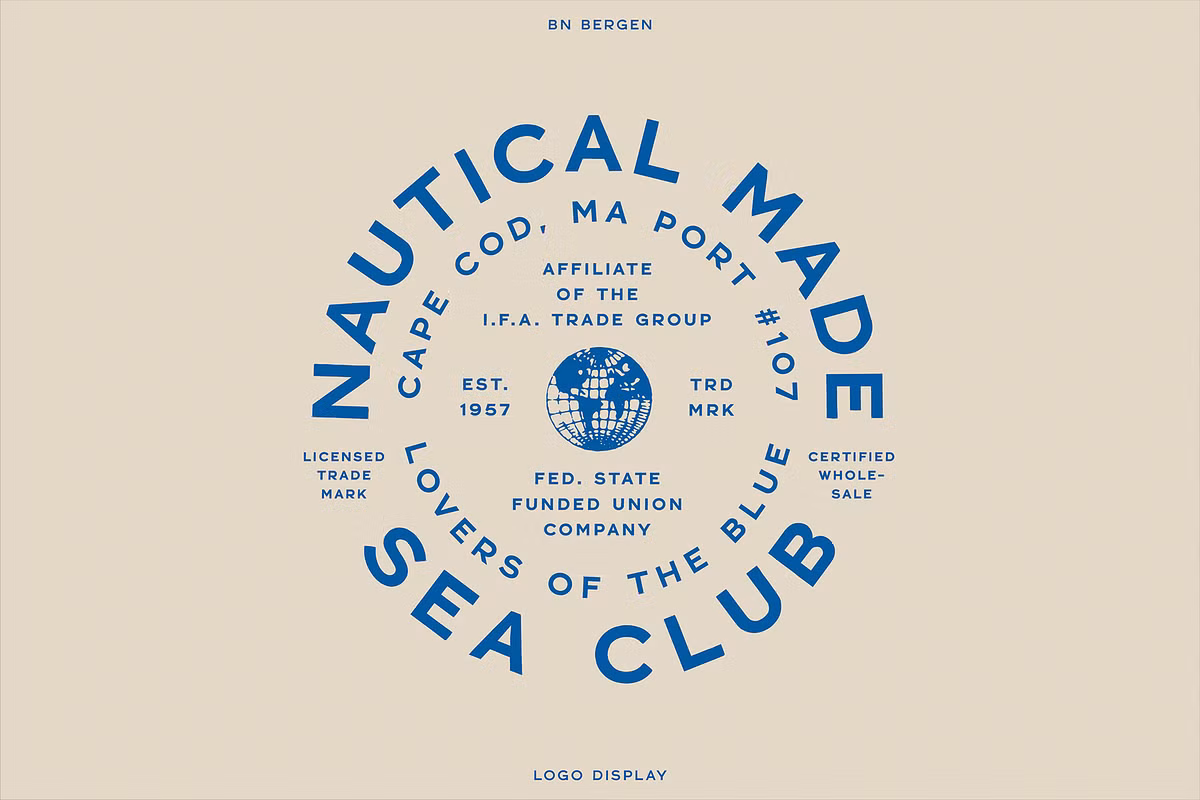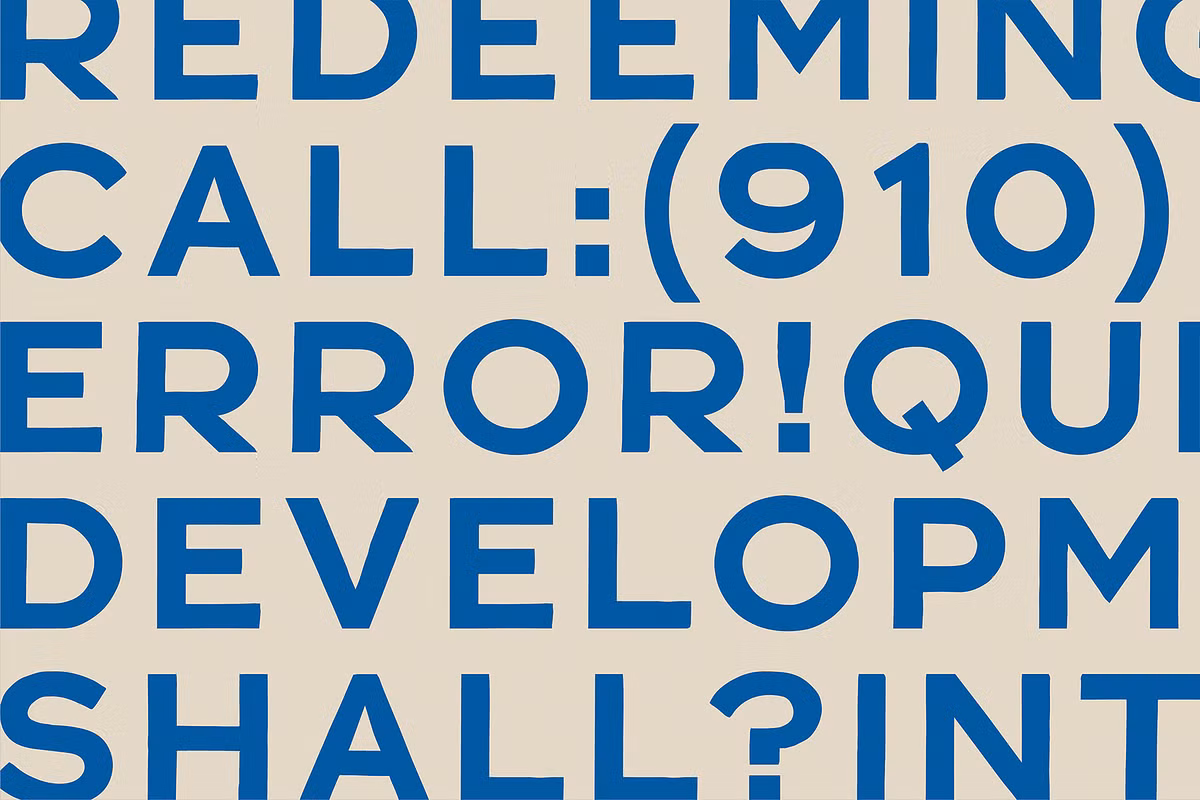
BN Bergen: Hand-Drawn Sans Serif Typeface for Graphic Design
Introducing BN Bergen
BN Bergen is a unique, hand-drawn font that really stands out in the world of design. Its modern, geometric shape makes it a great tool for designers to use in all sorts of projects. One of the best things about BN Bergen is that it comes in three different weights, so you can pick the one that’s just right for your design. This font is perfect for creating eye-catching displays or logos with an industrial feel. The flexibility and style of BN Bergen make it a great choice for designers who want to add something special to their work.
With its simple, yet distinctive shape, BN Bergen is a great option for anyone looking to add a touch of modern style to their designs. Whether you’re working on a big project or just need a font for a small task, BN Bergen is definitely worth considering. Its versatility and range of weights make it a great addition to any designer’s toolkit.
Design Style of BN Bergen
BN Bergen’s style is all about its hand-drawn look, which gives it a special mix of being personal and professional at the same time. It’s related to BN Hamburg Hand, so it has a similar appeal, but with its own unique touches. The geometric shapes in BN Bergen make it modern and creative, so it works well in many different design situations. This balance of old and new makes it really versatile.
BN Bergen is a great choice when you want a typeface that’s both stylish and easy to read. Its hand-drawn feel adds a human touch to any design, while its geometric forms keep it looking fresh and contemporary. Whether you’re working on a project that needs a personal feel or a professional one, BN Bergen can fit right in.
BN Bergen has a really nice and welcoming look to it. The soft edges and fun curves make it feel warm and cozy, which is great for projects that need a bit of character. You can use this typeface for both laid-back and more formal designs, so it’s a great addition to any designer’s collection.
Character Sets and Glyphs
BN Bergen has a wide range of characters, giving you everything you need for your design projects. You get the standard Latin alphabet, plus lots of special characters and punctuation marks. This means you can do more than just write basic text – you can have fun with typography and make your work look really great.
With all these characters, you can create something that’s visually appealing and stands out. Whether you’re working on a simple project or something more complex, BN Bergen’s got you covered. You can use it to add some extra flair to your text and make it look professional. The possibilities are endless, and it’s up to you to get creative and make the most of it.
Using BN Bergen gives you the ability to communicate with people who speak different languages, making it easier to reach a wider audience. With a wide range of glyphs to choose from, you can try out different typography layouts and styles, which can make your projects stand out in a crowded design world.
Use Cases for BN Bergen
BN Bergen is really great for a lot of different design projects. It can be used in many ways, here are some of the best examples:
- Display Layouts: Eye-catching for posters, flyers, or web banners.
- Logo Design: Excellent choice for industrial logos.
- Branding: Establishes a friendly and approachable brand image.
- Editorial Design: Suitable for magazine layouts and book covers.
When it comes to typography, pairing fonts effectively can elevate your design to new heights. BN Bergen’s unique characteristics allow it to pair beautifully with a variety of typefaces. Here are some recommendations:
- BN Hamburg Hand: Maintains a cohesive visual style.
- Serif Fonts: Create a striking juxtaposition with classics like Times New Roman.
- Modern Sans Serifs: Combine with modern styles like Montserrat for balance.
One of the best things about BN Bergen is that it comes with a huge range of characters, so you can use it for everything from big, bold headings to smaller, more detailed text. This makes it a great choice for all sorts of design projects, like creating eye-catching displays or professional-looking logos.
Whether you’re an experienced designer or just starting out, using BN Bergen can help you express your creativity and take your designs to the next level. So why not give it a try and see what kind of amazing things you can create with it?